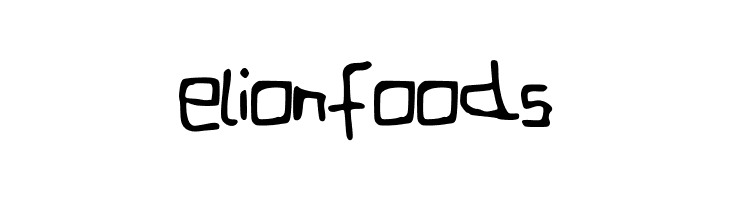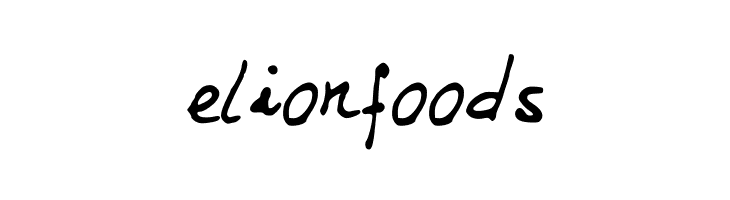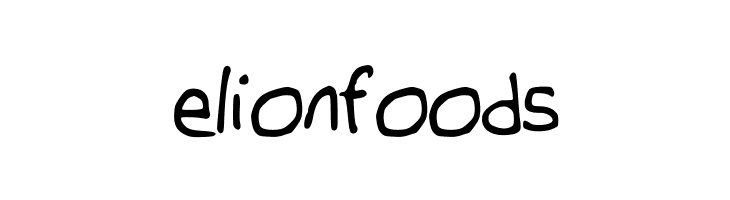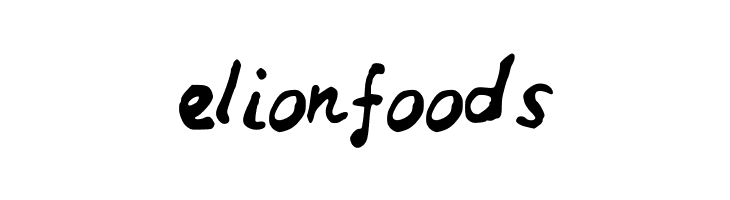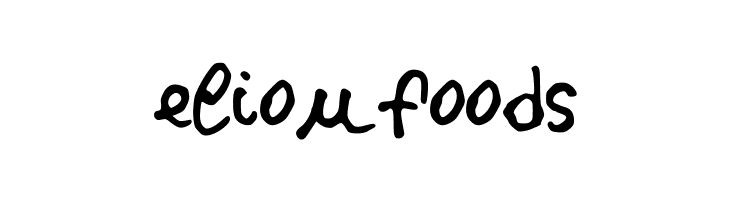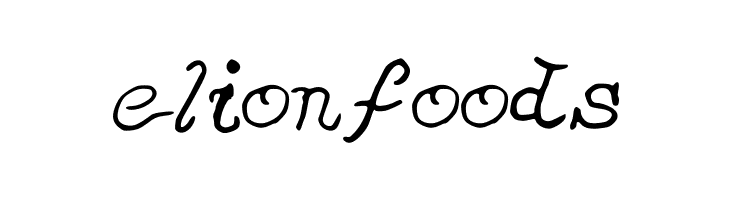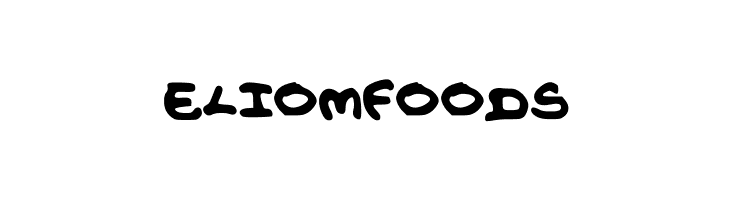
A playful, hand-drawn font with dynamic and irregular strokes.
A playful, handwritten font with irregular strokes and a casual style.
A playful handwritten font with fluid, connected strokes.
A playful, handwritten font with rounded, consistent strokes.
A bold, brush-style font with a casual, artistic flair.
A playful, casual handwritten font with irregular strokes and a lively feel.
A fluid and elegant script font with a handwritten style.
A playful, bold handwritten font with rounded, irregular characters.